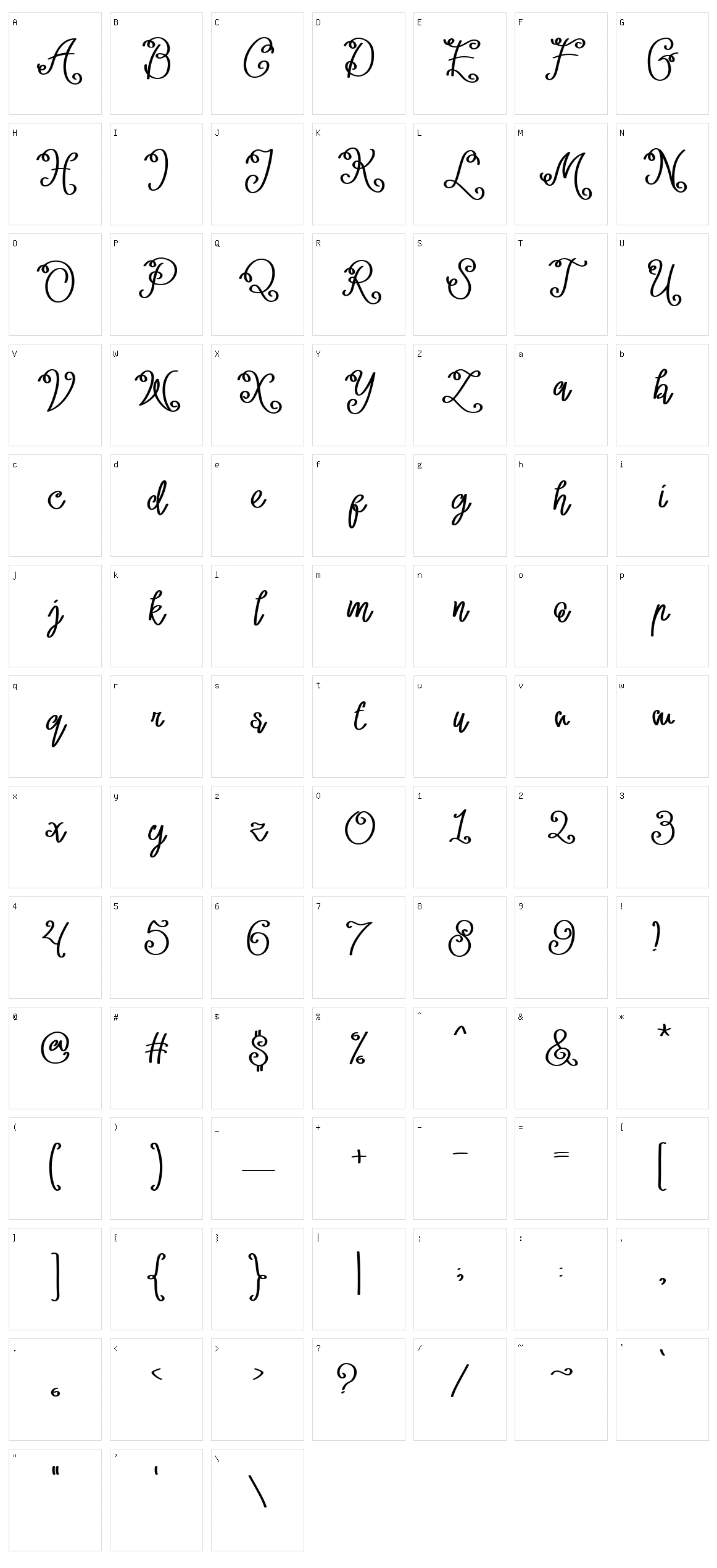
The free font Lacoruna is carefully designed by Em Nazar, showcasing a thoughtful balance of creativity and usability and falls under the Script font style. When you download the ZIP file, it contains only 79.8 KB of font files, making it lightweight and quick to download. Please review the license details below to understand permitted usage and distribution rights. If license information is not available, we recommend using this font for personal projects only or contacting the author directly for commercial usage permissions.